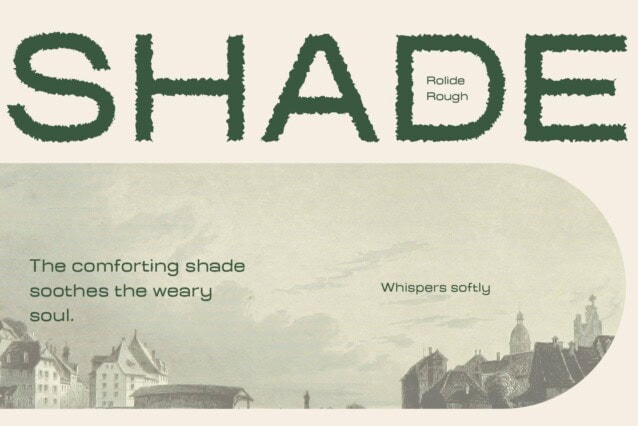
Rolide Rough Font
Rolide Rough Font is a modern sans-serif font featuring strong, wide serifs and a rough, textured finish. Its bold proportions and distinctive details create a powerful yet vintage-inspired aesthetic, blending classic craftsmanship with a contemporary edge. The textured effect enhances its rugged, handcrafted appeal, adding depth and personality to any design.